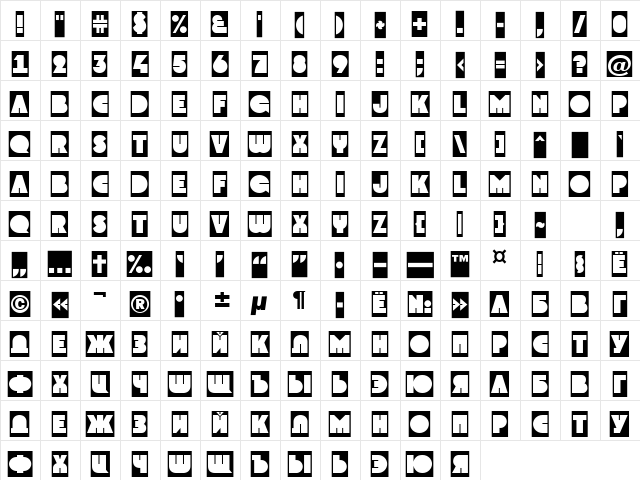
a_GrotoCm Normal
Design Context for a_GrotoCm Typeface
a_GrotoCm is a composed and adaptable typeface that performs quietly and consistently across a wide range of design contexts.
Pro Tip: Use a_GrotoCm in both headline and body roles to test its range before committing to a single application.